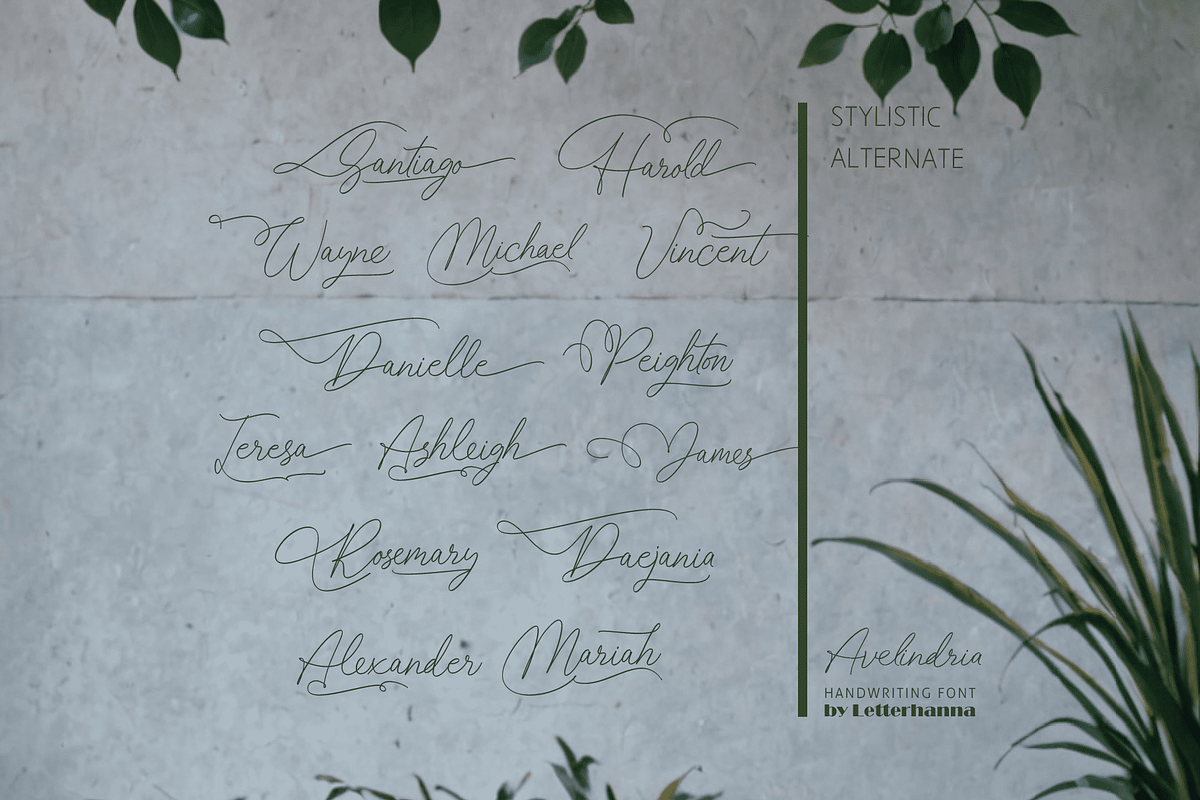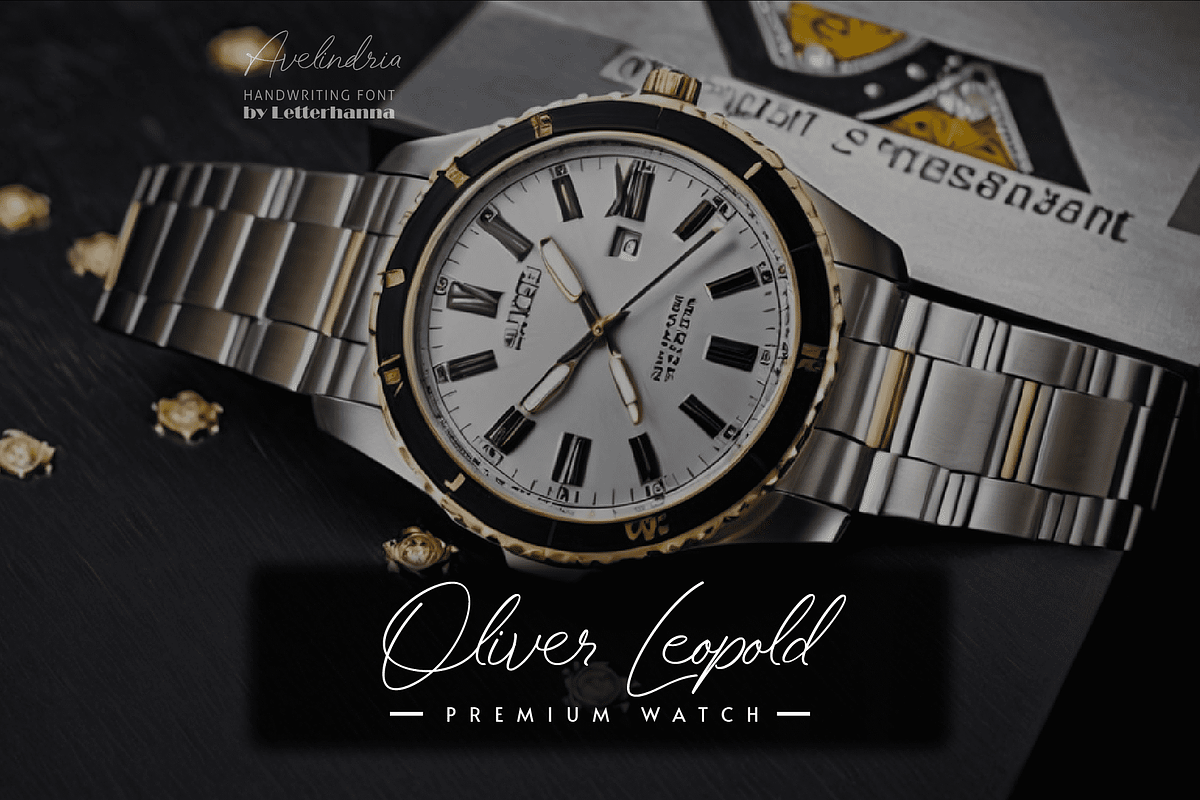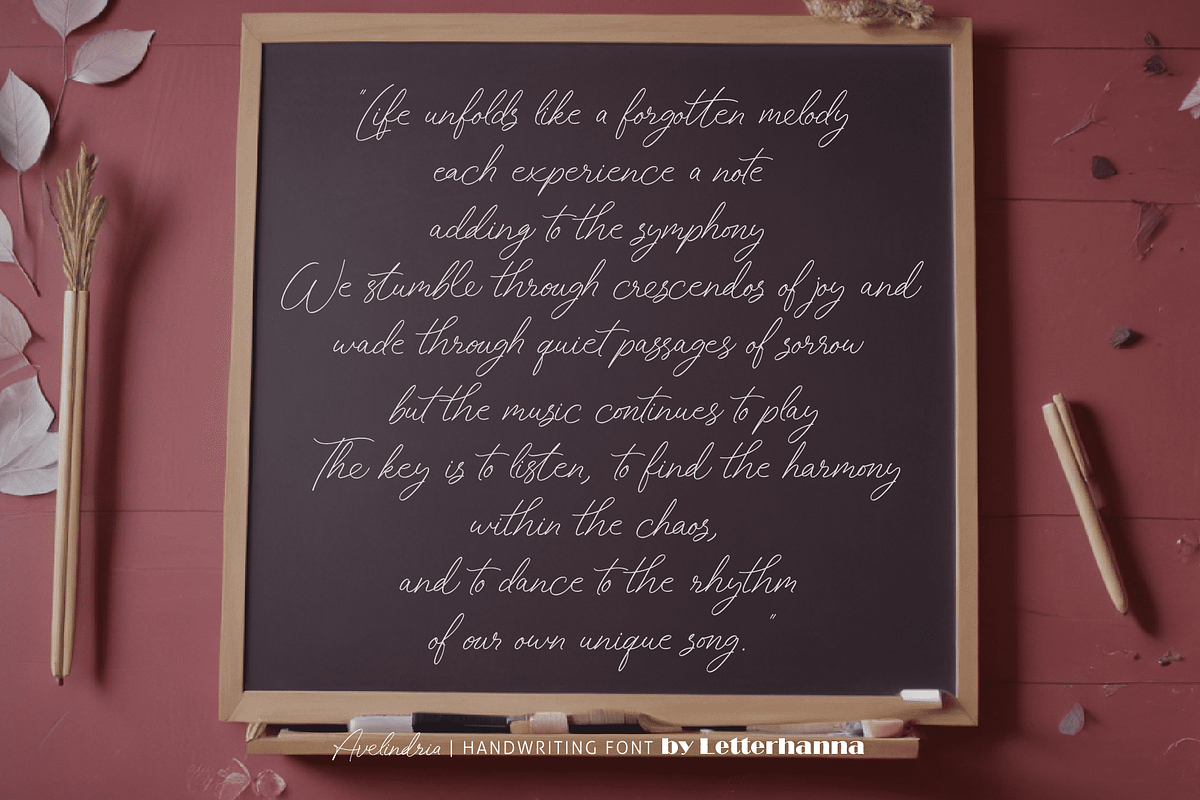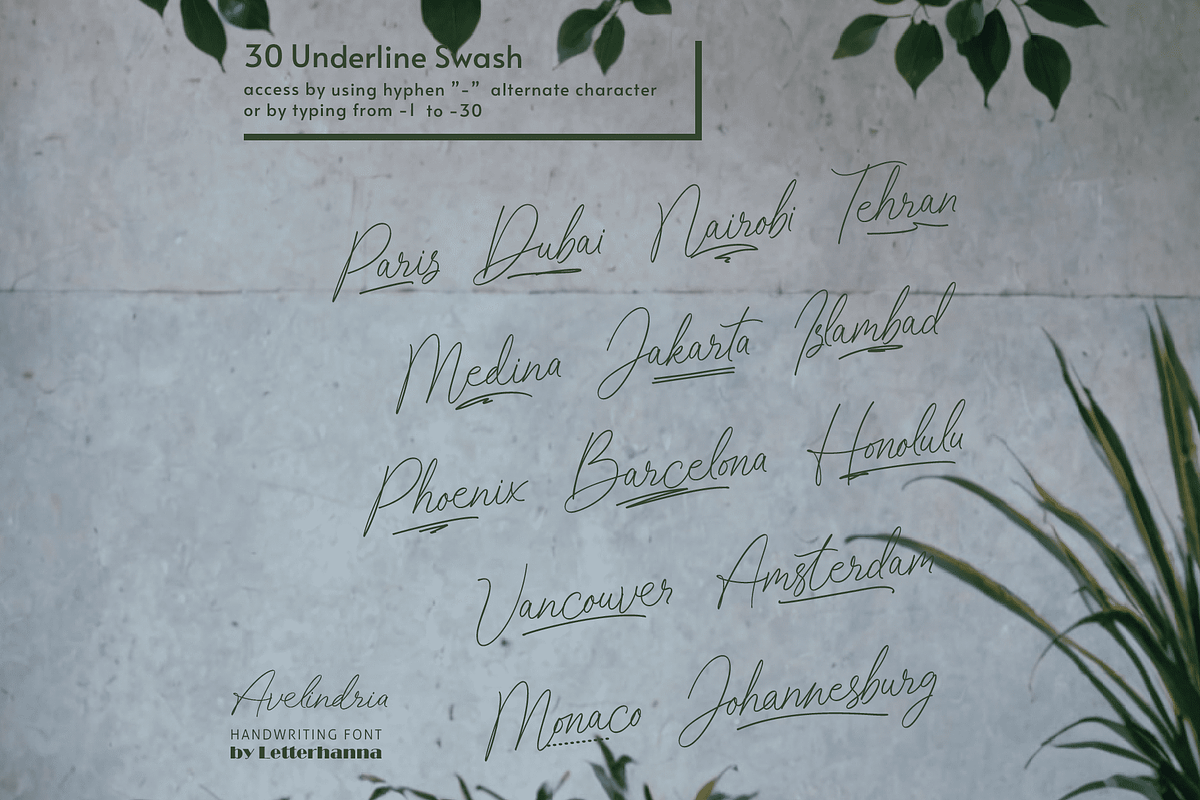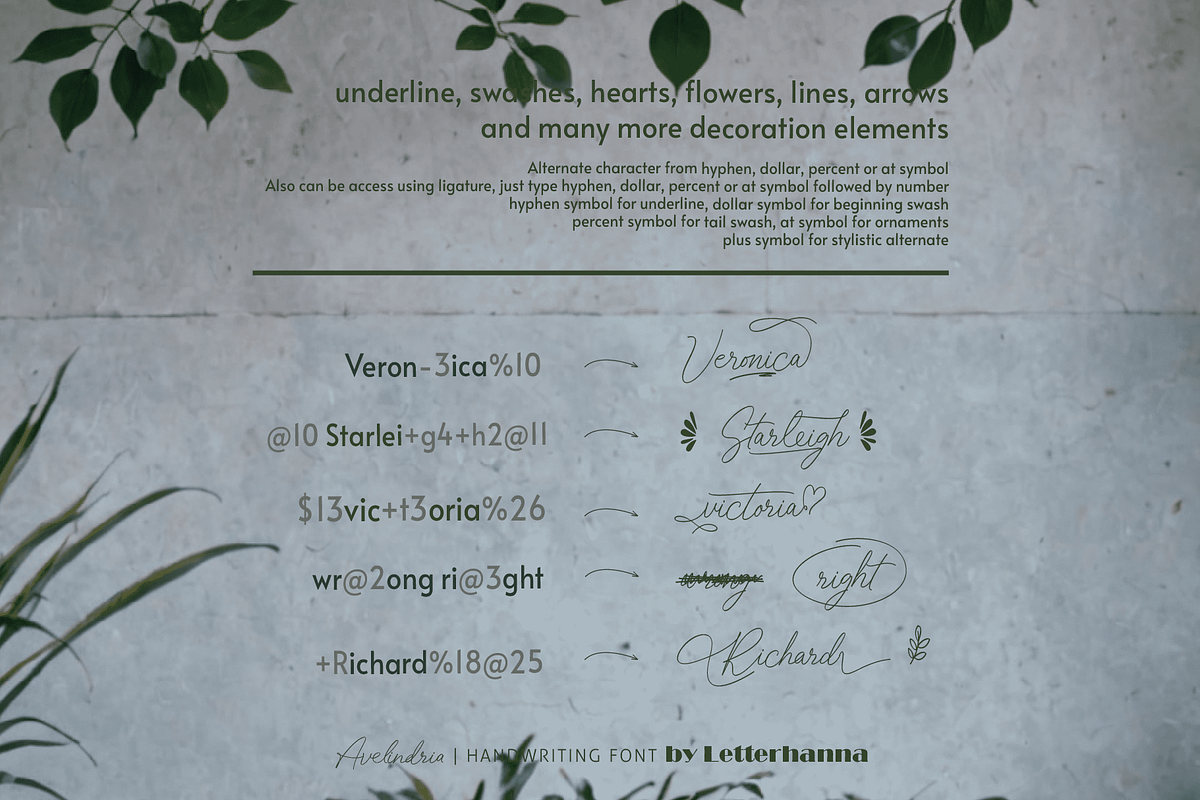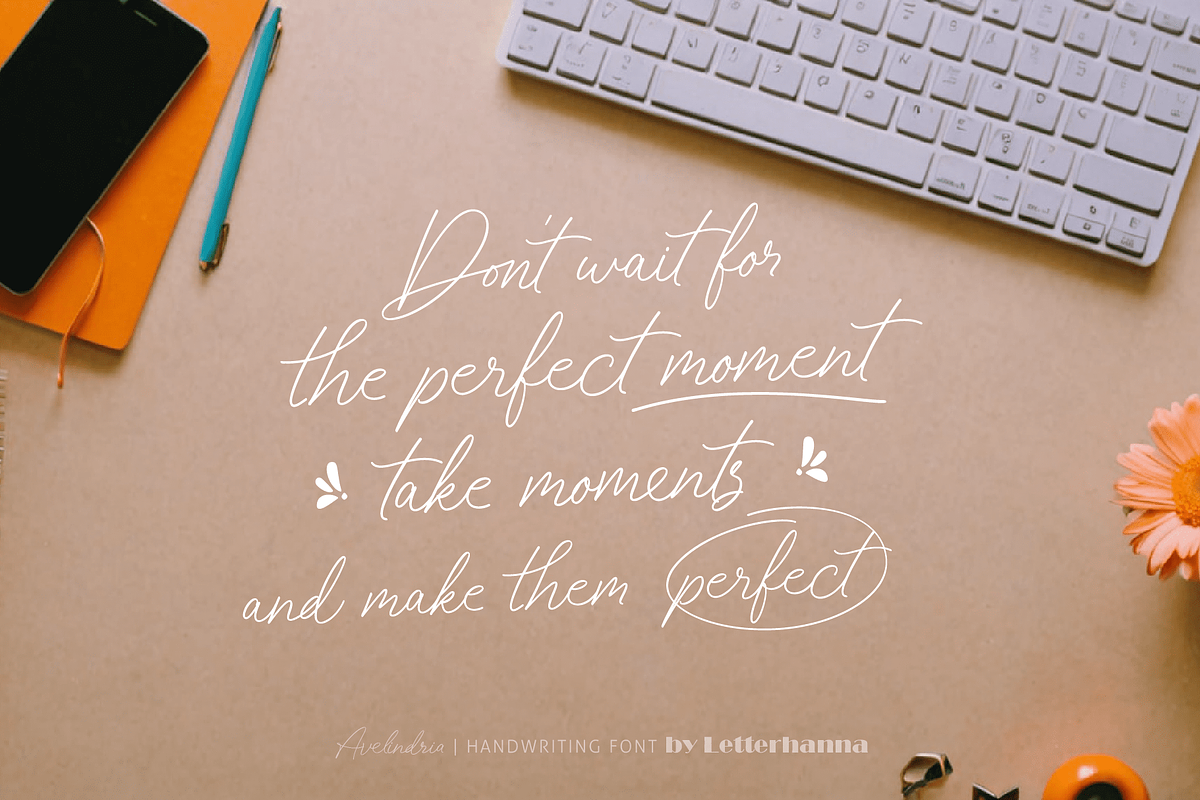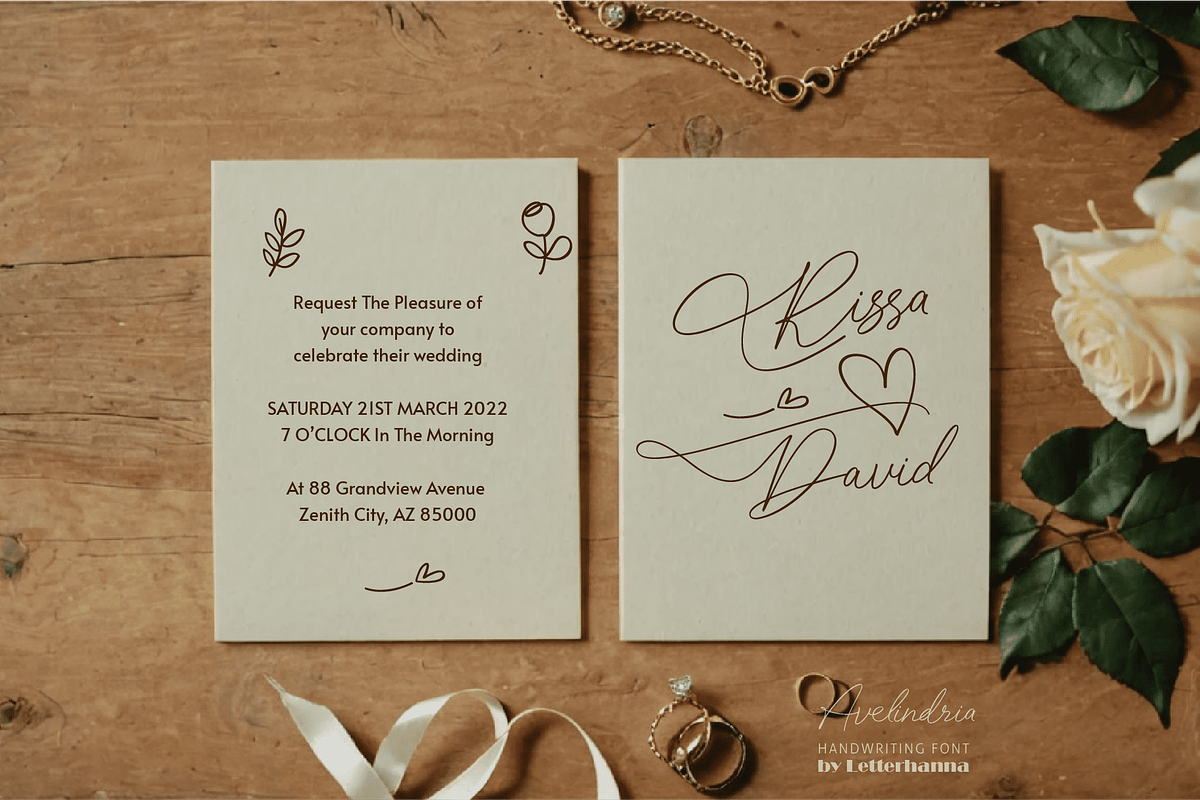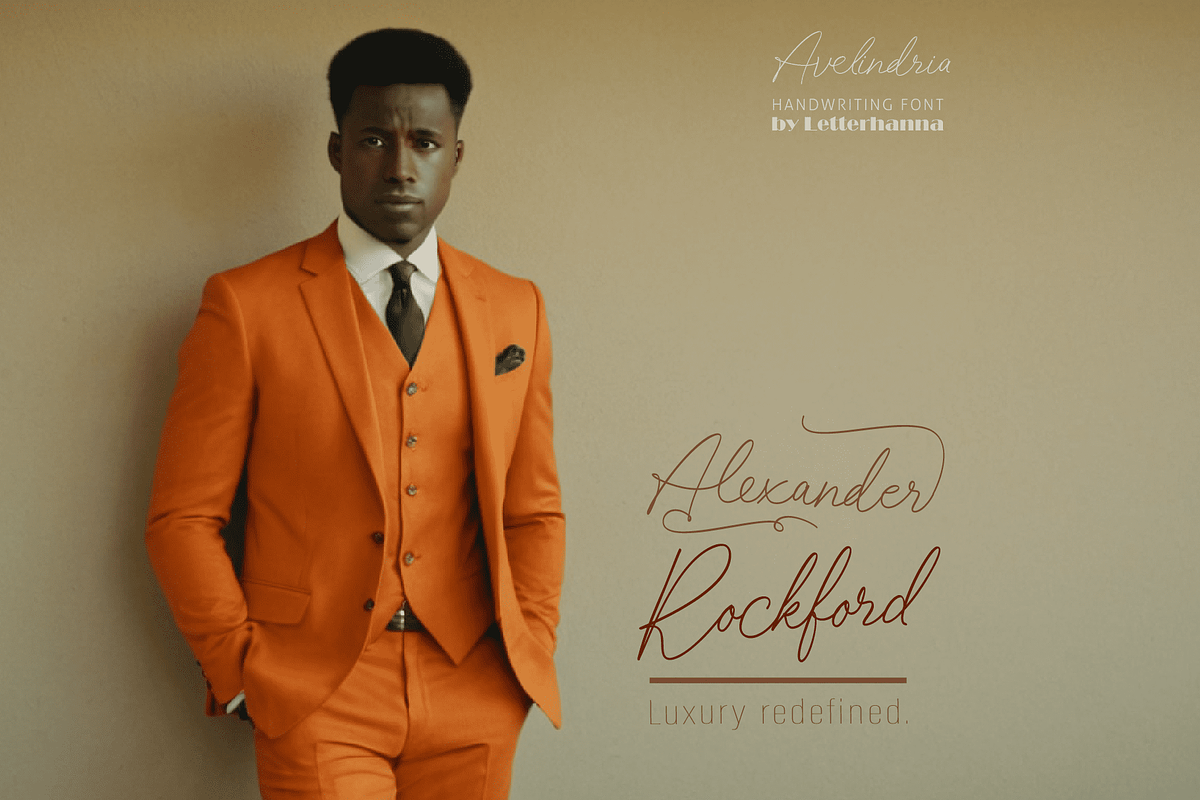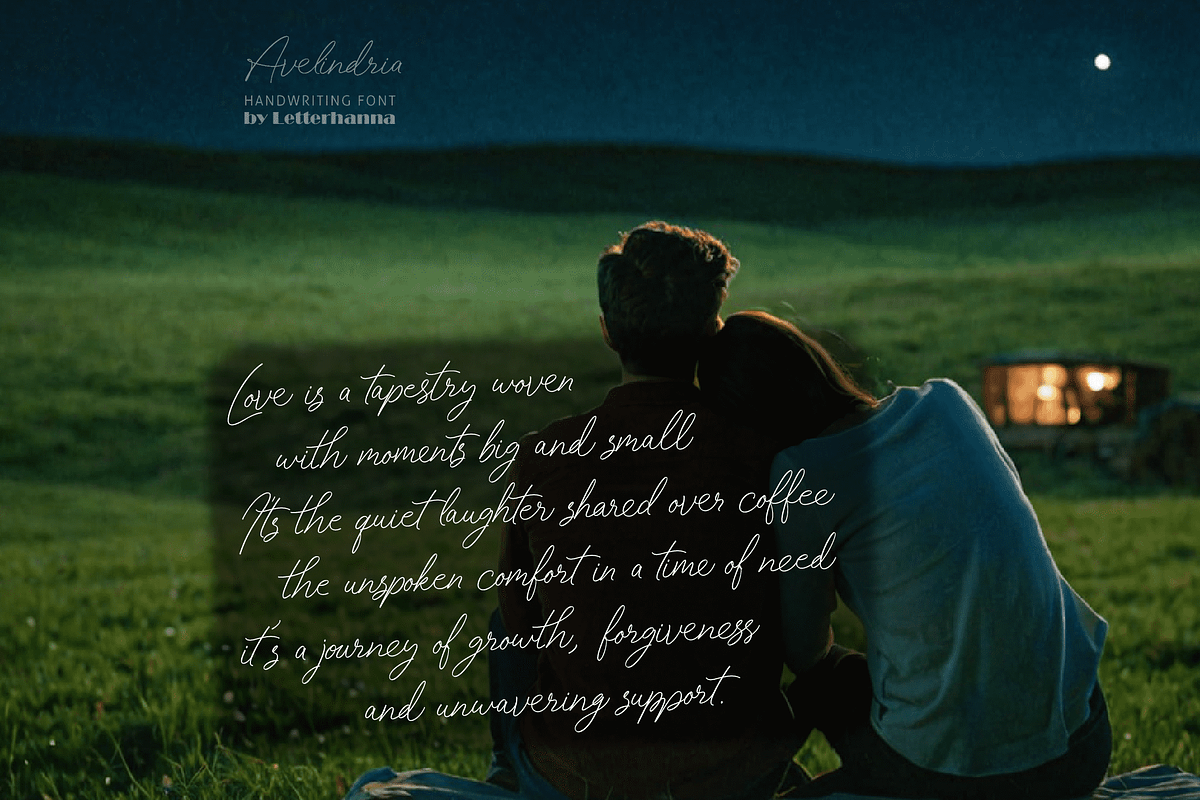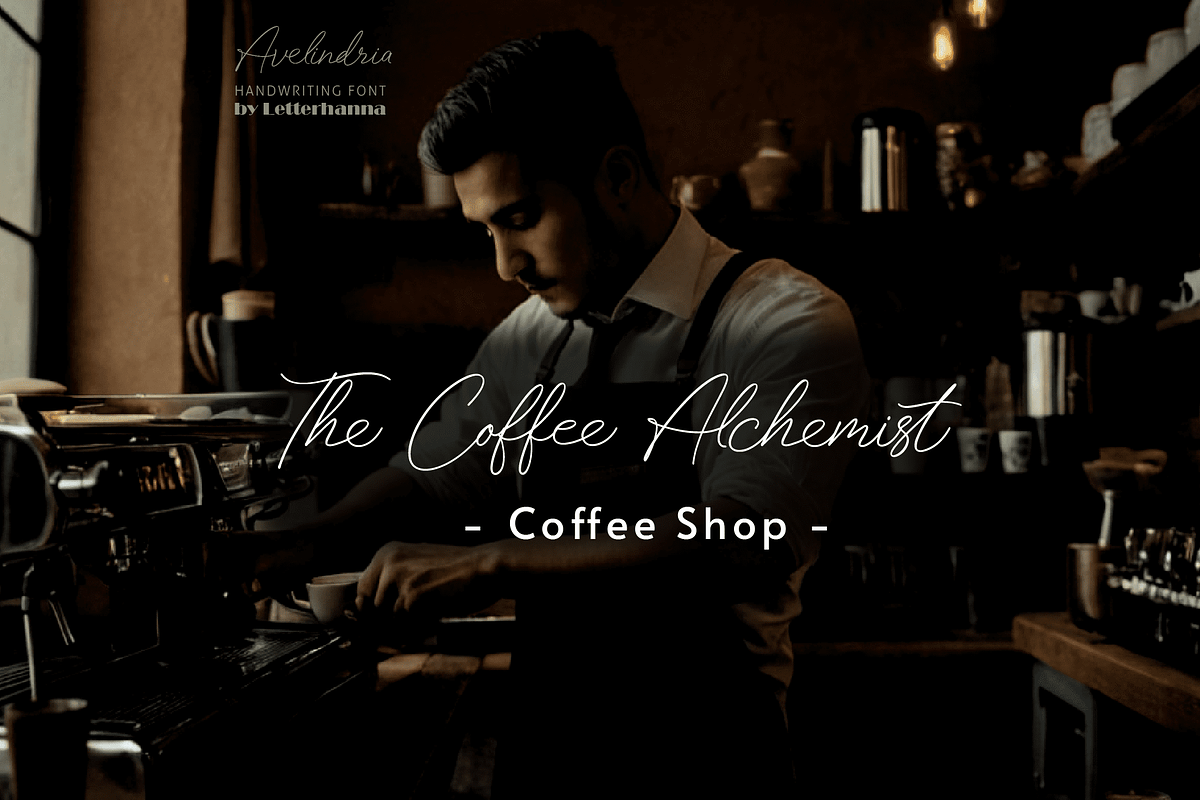
Avelindria Font
Introducing Avelindria, a captivating new handwriting script that embodies elegance and versatility. Designed to enthrall, Avelindria boasts a wealth of stylistic alternates, swashes, and ligatures, allowing you to craft text with unmatched personality and flair. Whether you're gracing invitations with a touch of timeless beauty or adding a flourish to logos and branding materials, Avelindria empowers you to express yourself with captivating individuality.
Easy Access to Glyphs and Swashes
Accessing Stylistic Alternates
Stylistic alternates can be accessed by typing a plus symbol "+" in front of the original letter. For example, type "+a" to get the stylistic alternate of the letter a.
Accessing Swashes and Ornaments
Underline Swashes: Use a hyphen symbol "-" followed by a number between 1 and 30. For example, type "-3", "-22", or "-17" to get various underline swashes.
Head/Beginning Swashes: Use a dollar sign "$" followed by a number between 1 and 9. For example, type "$2" or "$8" to get different head/beginning swashes.
Tail/Ending Swashes: Use a percent sign "%" followed by a number between 1 and 30. For example, type "%3" or "%15" to get various tail/ending swashes.
Ornaments: Use an "at" symbol "@" followed by a number between 1 and 26. For example, type "@4" or "@13" to get different ornaments.
Uppercase and lowercase letters
Numbers and punctuation marks
Beginning and ending swashes
Underline swashes
Stylistic alternates
Ornaments
Easy access to swashes using ligatures